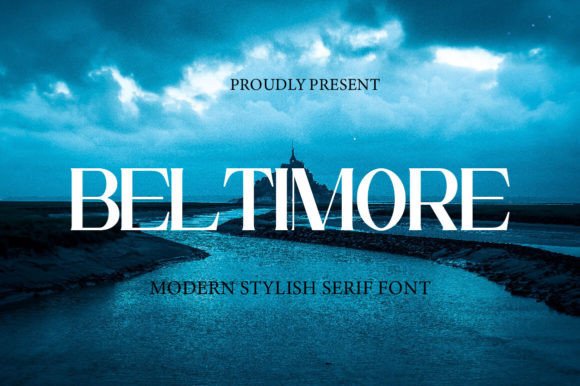
Discover the Modern Charm of Beltimore Font
I’ll never forget the design project that led me to Beltimore font. I was working on a branding campaign for a trendy boutique hotel, and I needed a font that exuded modern style and sophistication. After hours of scouring font libraries, I stumbled upon Beltimore font, and it instantly became my go-to choice. Its sleek, serif lines and elegant flair perfectly captured the hotel’s chic vibe. In this article, I’ll share my experience with Beltimore font, its features, and how to make the most of it in your designs.
What Makes Beltimore Font Special?
Beltimore font is a modern, stylish serif font designed for display and body text. It comes in regular and italic styles, ensuring versatility for various creative projects. Here are some of its standout features:
- ✨ Modern style: Beltimore font boasts a fresh, contemporary look that’s perfect for titles, headlines, and body text.
- ✅ Easy readability: Its clear, serif lines make it easy to read, even at smaller font sizes.
- ✅ Comprehensive character set: Includes uppercase and lowercase letters, numbers, alternate stylish glyphs, ligatures, and punctuation marks.
- ✨ The font’s stylish alternates and ligatures add a touch of elegance to any design.
- ✅ High-quality rendering: Maintains its crisp, clean look even at larger font sizes.
While Beltimore font is an excellent choice, there are a few minor considerations:
- ⚠️ Occasional hinting issues: At very small font sizes (e.g., 8-10px), some characters might appear slightly pixelated.
- 🤔 Manual kerning required: For optimal results, you may need to adjust kerning between certain letter combinations.
The Story Behind Beltimore Font
Beltimore font was designed with the modern creative in mind. Its creator aimed to craft a font that balances style and readability, making it perfect for a wide range of applications. Inspired by urban landscapes and contemporary design trends, Beltimore font embodies the perfect blend of sophistication and approachability.
Q: Is Beltimore font suitable for body text?
A: Absolutely! Beltimore font’s clear, serif lines make it an excellent choice for body text, ensuring easy readability.